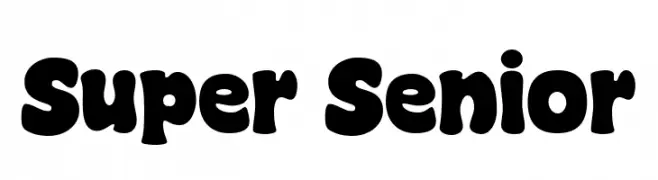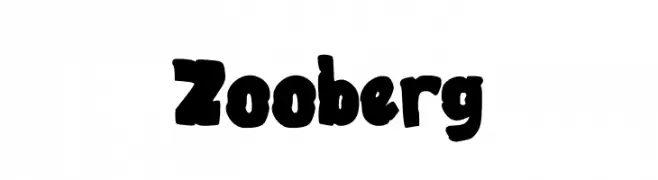
A bold, playful font with a graffiti-like, hand-drawn aesthetic.
A bold, playful font with a hand-drawn, graffiti-like style.
A playful, character-filled font with unique, expressive details.
A bold, playful font with a hand-drawn, dynamic style.
A bold, playful font with a hand-drawn, retro vibe.
A bold, textured font with a playful, donut-inspired design.
A bold, playful font with rounded edges and a retro-modern style.
A bold, playful font with thick, rounded characters and a whimsical style.
A bold, playful font with rounded, bubbly characters perfect for decorative use.
A bold, playful font with thick, rounded characters and a whimsical style.